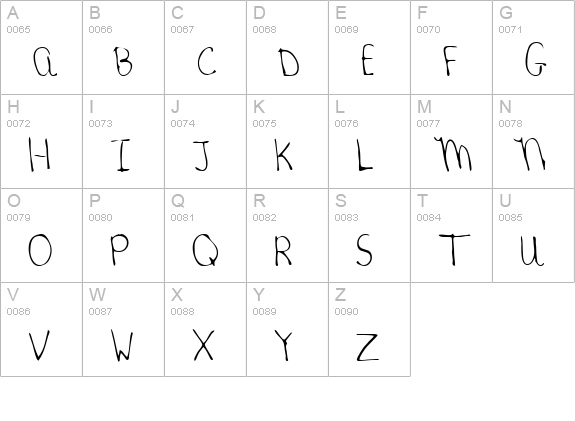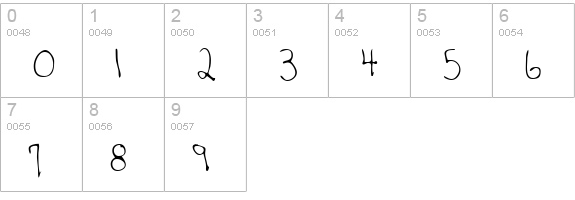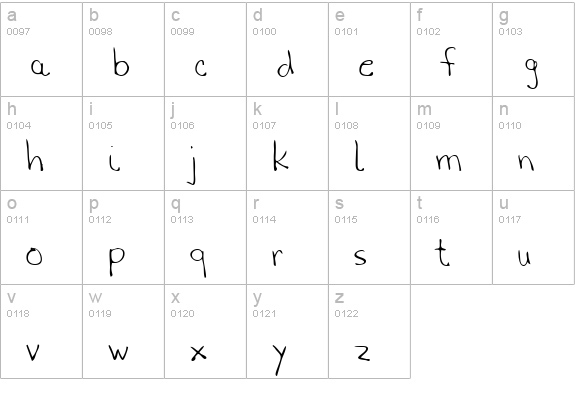
HanksHand Regular is the standard, neutral variant in the HanksHand typeface family \xE2\x80\x94 well suited to general body text, paragraphs, and standard typographic work.
HanksHand Regular font is a charming and versatile typeface that exudes a casual and handwritten feel. With its organic curves and playful strokes, this font captures the essence of natural handwriting, making it perfect for adding a touch of personalization to any project. This font's free-spirited nature extends beyond its design, as it is freely available to download at FontsMarket.com. Whether you're a designer looking to add some whimsy to a greeting card or a blogger in need of a unique and expressive header font, HanksHand Regular is the perfect choice. The carefully crafted letterforms of HanksHand Regular effortlessly blend legibility with a sense of individuality. Each stroke seems to flow effortlessly into the next, resulting in a truly organic and handwritten appearance. This font is equally well-suited for both large headlines and small body text, ensuring its versatility across a wide range of applications. HanksHand Regular is not just a font; it's a creative tool that allows you to infuse your projects with character and personality. Its free availability at FontsMarket.com means that you can easily bring this delightful typeface into your design arsenal without any financial constraints. So, whether you're designing a logo, creating a poster, or simply looking to add a personal touch to your next project, HanksHand Regular font is the ideal choice. Download it for free at FontsMarket.com and let your creativity flow with this charming and expressive typeface.